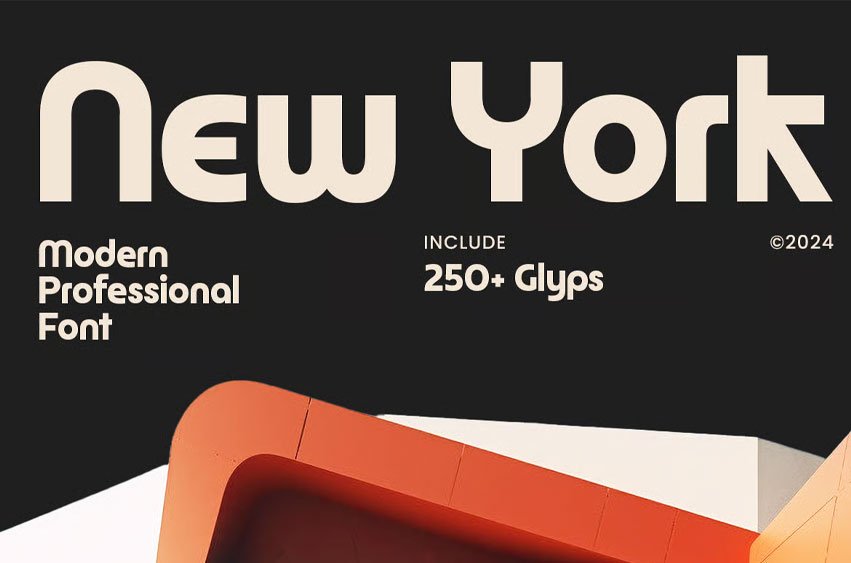
New York Professional Font is a modern professional font designed for sophisticated branding and high-end design projects. Its clean and elegant letterforms provide a contemporary yet timeless feel, making it perfect for logos, corporate materials, and professional presentations. This font embodies the essence of modern minimalism while maintaining a sense of luxury and refinement.
Inspired by the vibrant energy of the city it’s named after, New York offers versatility and adaptability for various design applications. Whether you are crafting a corporate identity, designing sleek business cards, or working on editorial content, this font ensures your work exudes professionalism and style.
Ideal for branding, business logos, websites, and more, New York’s refined design effortlessly elevates your project, helping you communicate a polished and modern aesthetic that leaves a lasting impression.
New York Modern Professional Font Features:
- Any Alternative Characters Ready
- Available in Regular & Outline Style
- Punctuation, Number, and Symbol
- Uppercase and Lowercase
- Opentype Features